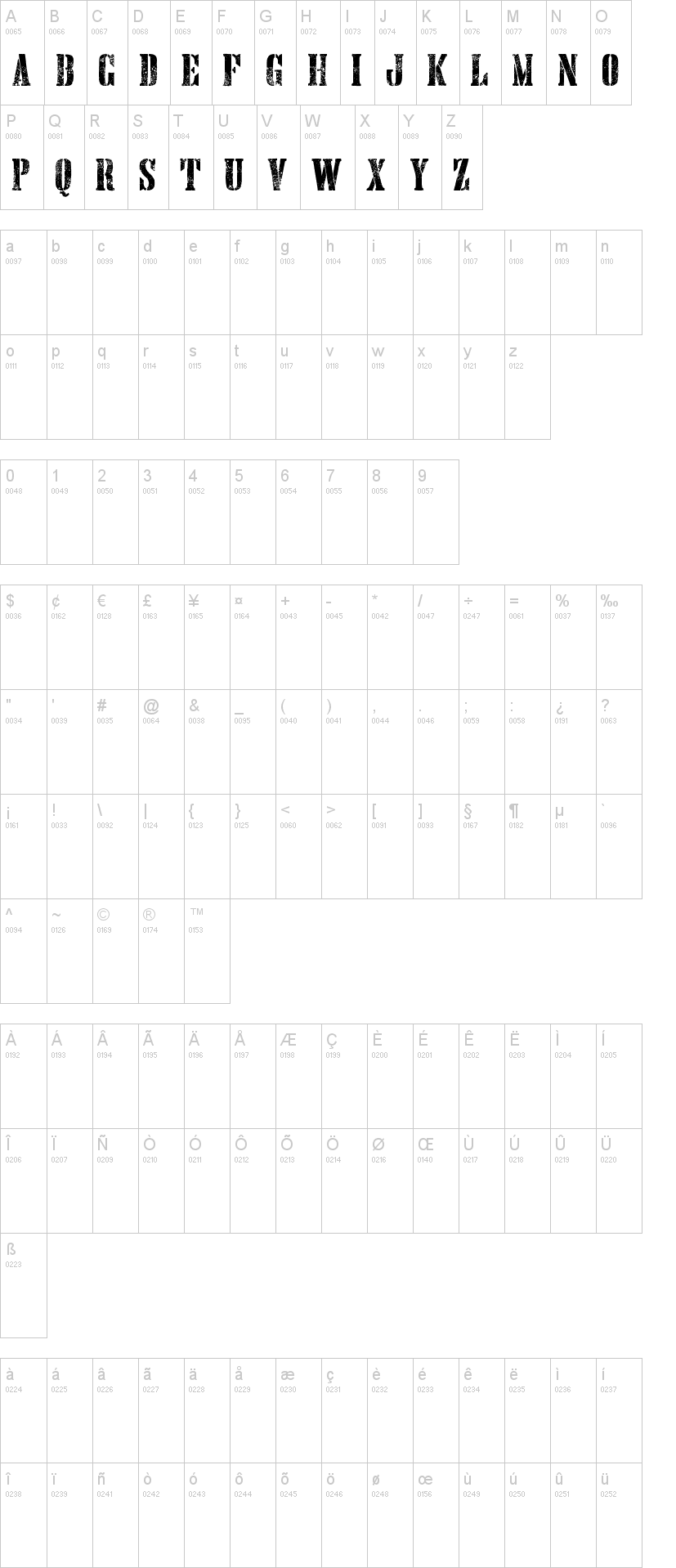
Note of the author"Hand Printing Press Eroded Bold" font, like the name suggest, comes from the idea of those sheets of cardboard (o other kind of material) where the letters have been cut off in order to be used as a pattern where the ink transfers, passing through the cut, leaving its "sign" on a surface, usually paper.
This version of "Hand Printing Press" font (just one of the whole Hand Printing Press Pack that you can find here https://fontscafe.com/font/hand-printing-press-pack-fonts) has a strong structure with an eroded effect that reminds the irregularity of the press on the paper very common when those beautiful wooden letter blocks were used with the printing press devices, an art that still is fashinating most of us.